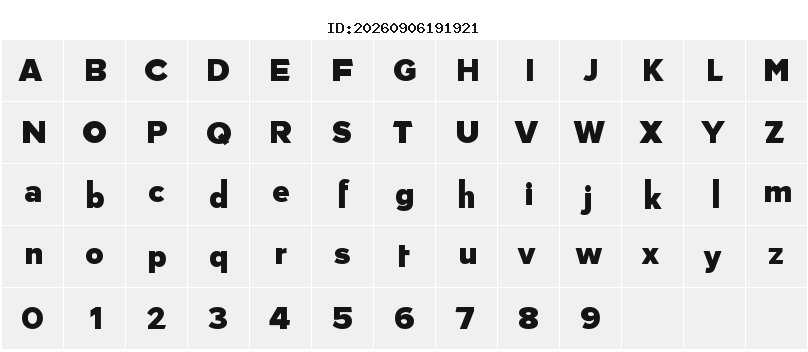
• Font Name: TCF 90s
• Designer: Mark Simonson
TCF 90s.ttf is a modern, elegant sans-serif font designed for ultimate readability and visual harmony. Perfect for branding, headlines, web design, and print materials.